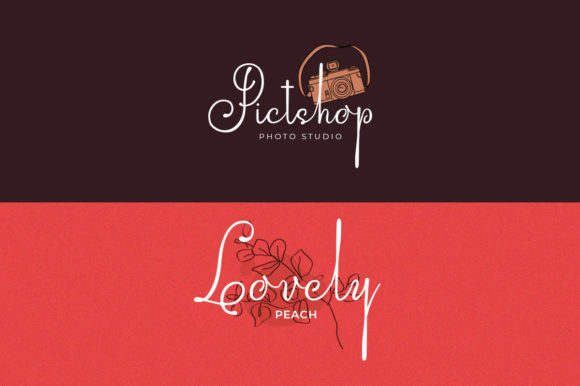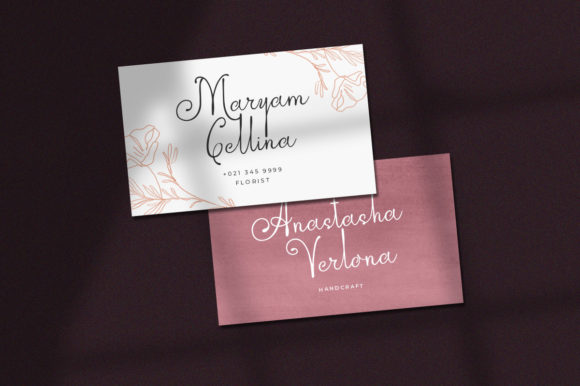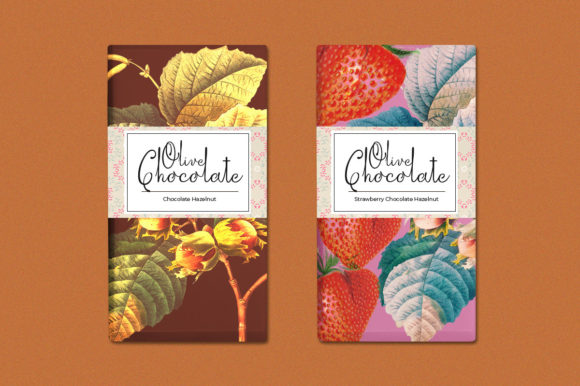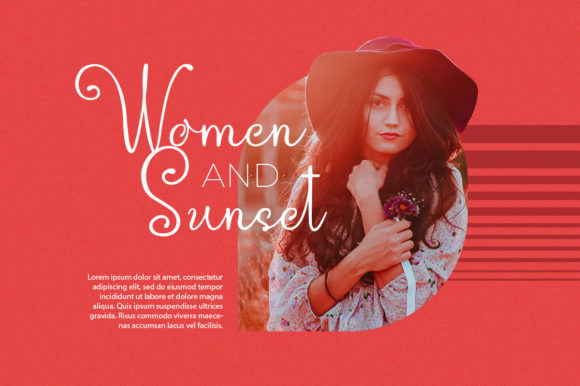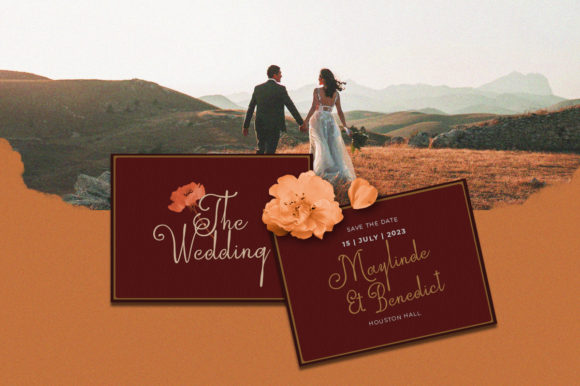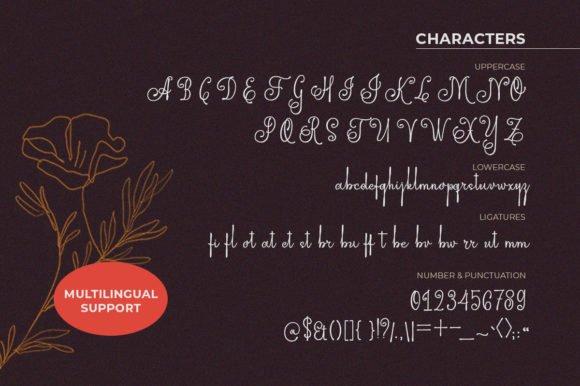
Introducing Edellyn Script Font: Elevate Your Designs with Elegance
Are you on the hunt for a font that exudes elegance, sophistication, and romance? Look no further than Edellyn Script Font, a stunning thin lettered and graceful script font that’s sure to captivate your audience. With its ravishing style, Edellyn Script is the perfect choice for designers and crafters seeking to create breathtaking wedding invitations, beautiful stationery art, eye-catching social media posts, and more.
The Essence of Edellyn Script Font
Edellyn Script Font boasts a delicate, refined aesthetic that’s characterized by its slender lines and fluid curves. This gorgeous script font is meticulously crafted to convey a sense of luxury, poise, and refinement, making it an ideal selection for projects that demand a touch of sophistication. Whether you’re designing wedding invitations, branding materials, or digital content, Edellyn Script Font is sure to elevate your work to new heights.
One of the most exciting aspects of Edellyn Script Font is its versatility. This beautiful font can be used in a wide range of creative projects, including:
- Wedding Invitations: Create stunning wedding invites that set the tone for a fairytale-like celebration.
- Stationery Art: Design gorgeous stationery, including greeting cards, thank-you notes, and letters.
- Social Media Posts: Craft eye-catching social media posts that grab attention and leave a lasting impression.
- Branding Materials: Use Edellyn Script Font to create elegant logos, business cards, and brochures.
- Digital Content: Add a touch of sophistication to your blog posts, e-books, and digital magazines.
Why Choose Edellyn Script Font?
So, what sets Edellyn Script Font apart from other script fonts on the market? Here are just a few compelling reasons to choose Edellyn Script:
- Unique and Exclusive: Edellyn Script Font boasts a distinctive style that’s sure to make your designs stand out from the crowd.
- Elegant and Refined: This gorgeous script font exudes sophistication and poise, making it perfect for high-end projects.
- Easy to Read: Despite its delicate nature, Edellyn Script Font remains highly legible, ensuring that your message is conveyed with clarity.
- Highly Versatile: Use Edellyn Script Font in a variety of creative projects, from print materials to digital content.
Tips for Using Edellyn Script Font
To get the most out of Edellyn Script Font, here are a few expert tips to keep in mind:
- Pair with Contrasting Fonts: Combine Edellyn Script Font with bold, sans-serif fonts to create striking visual contrast.
- Experiment with Colors: Try pairing Edellyn Script Font with a range of colors, from soft pastels to rich jewel tones.
- Play with Size and Scale: Use Edellyn Script Font in a variety of sizes to create visual hierarchy and emphasize key messages.
In conclusion, Edellyn Script Font is a breathtakingly beautiful script font that’s sure to elevate your designs to new heights. With its slender lines, fluid curves, and sophisticated aesthetic, this gorgeous font is perfect for designers and crafters seeking to create elegant, refined, and romantic designs. Whether you’re working on wedding invitations, stationery art, social media posts, or branding materials, Edellyn Script Font is the perfect choice. So why wait? Fall in love with Edellyn Script Font today and discover a world of creative possibilities!